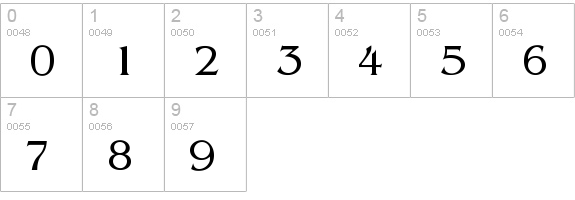
AidaBook Font Details
Introducing AidaBook font, a versatile and elegant typeface perfect for a wide range of design projects. With its timeless appearance and clean lines, AidaBook font exudes sophistication and readability, making it a top choice for both digital and print applications. This font offers a harmonious balance between modernity and tradition, making it suitable for various design purposes such as branding, editorial design, and more. And the best part? AidaBook font is available for free download at FontsMarket.com. Don't miss out on the opportunity to add this exquisite font to your collection without spending a dime. Embrace the beauty of AidaBook font and elevate your designs with its graceful charm and legibility. Download it today and let your creativity shine with this premium quality font that won't cost you a penny.